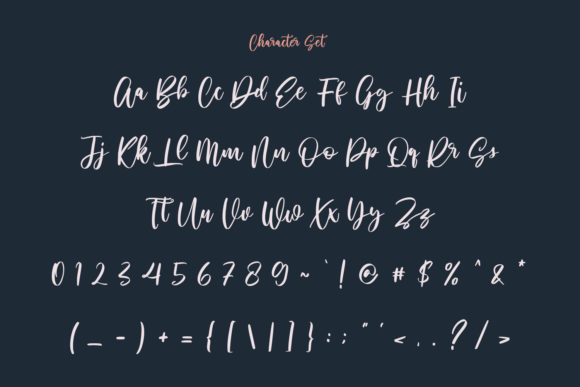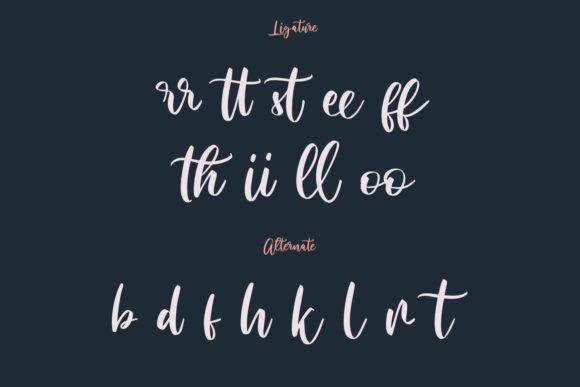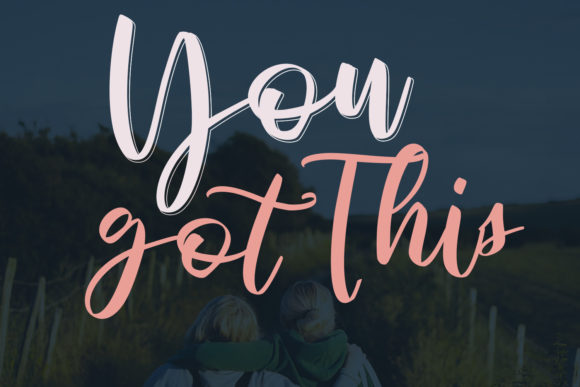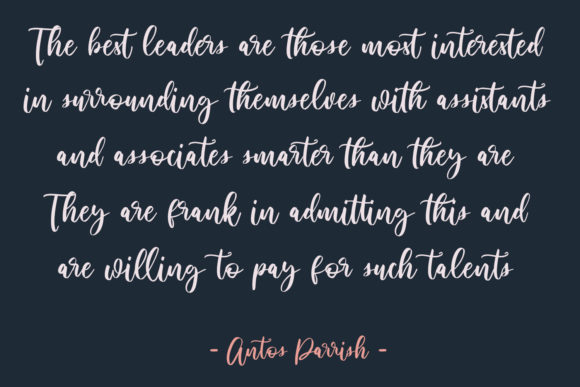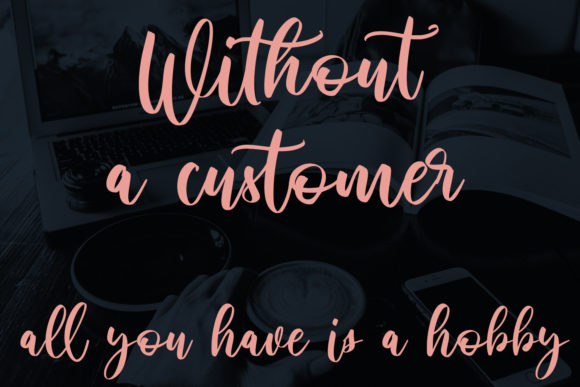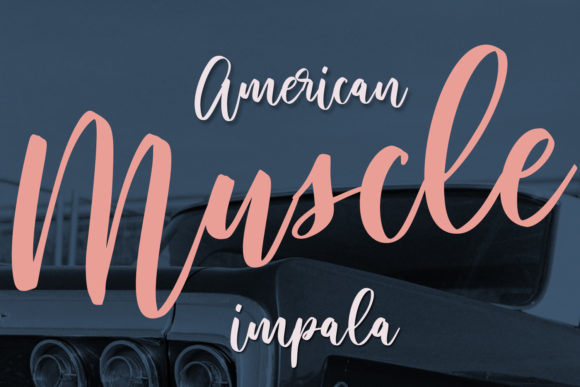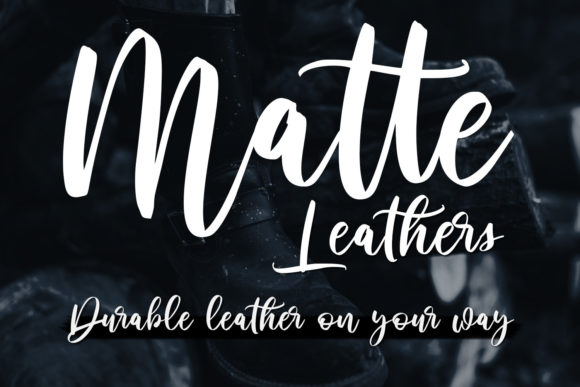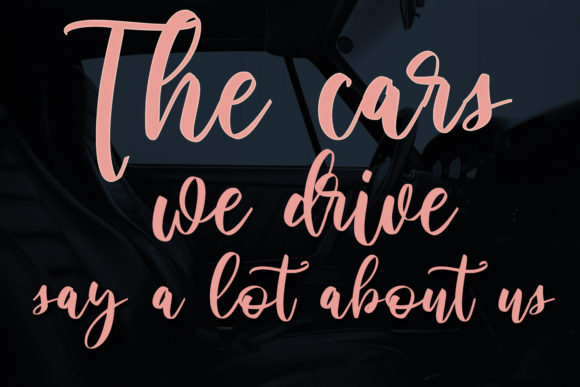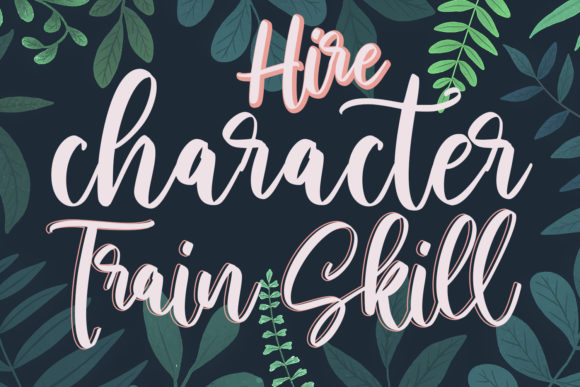
Cathelyne Script Font
About Cathelyne Script Font
“Cathelyne Script” emerges as a casual script font that exudes a relaxed and informal vibe. Characterized by its slanted high-contrast strokes, playful characters, and a range of ligatures and alternates, this font becomes a confident choice to enhance your projects. When incorporated into your designs, you’re likely to appreciate the compelling results it produces.
The allure of “Cathelyne Script” lies in its ability to add a touch of casualness and playfulness to your work. Its distinct strokes and character variations contribute to an aesthetic that resonates with a relaxed and engaging vibe. This font can seamlessly integrate into various design contexts, ensuring its versatility shines through.
Whether you’re designing branding materials that require a casual touch or crafting projects that demand a bit of artistic flair, “Cathelyne Script” becomes an essential tool. Its unique design can elevate the visual impact of your work and make it stand out with a personalized touch.
Incorporating “Cathelyne Script” into your design projects means embracing its casual and playful attributes. By leveraging its unique charm, you’re enhancing the visual allure of your work and ensuring that your designs resonate effectively with your intended audience. This font becomes a versatile instrument for infusing your creations with a touch of informality and creativity, making your projects all the more engaging and approachable.